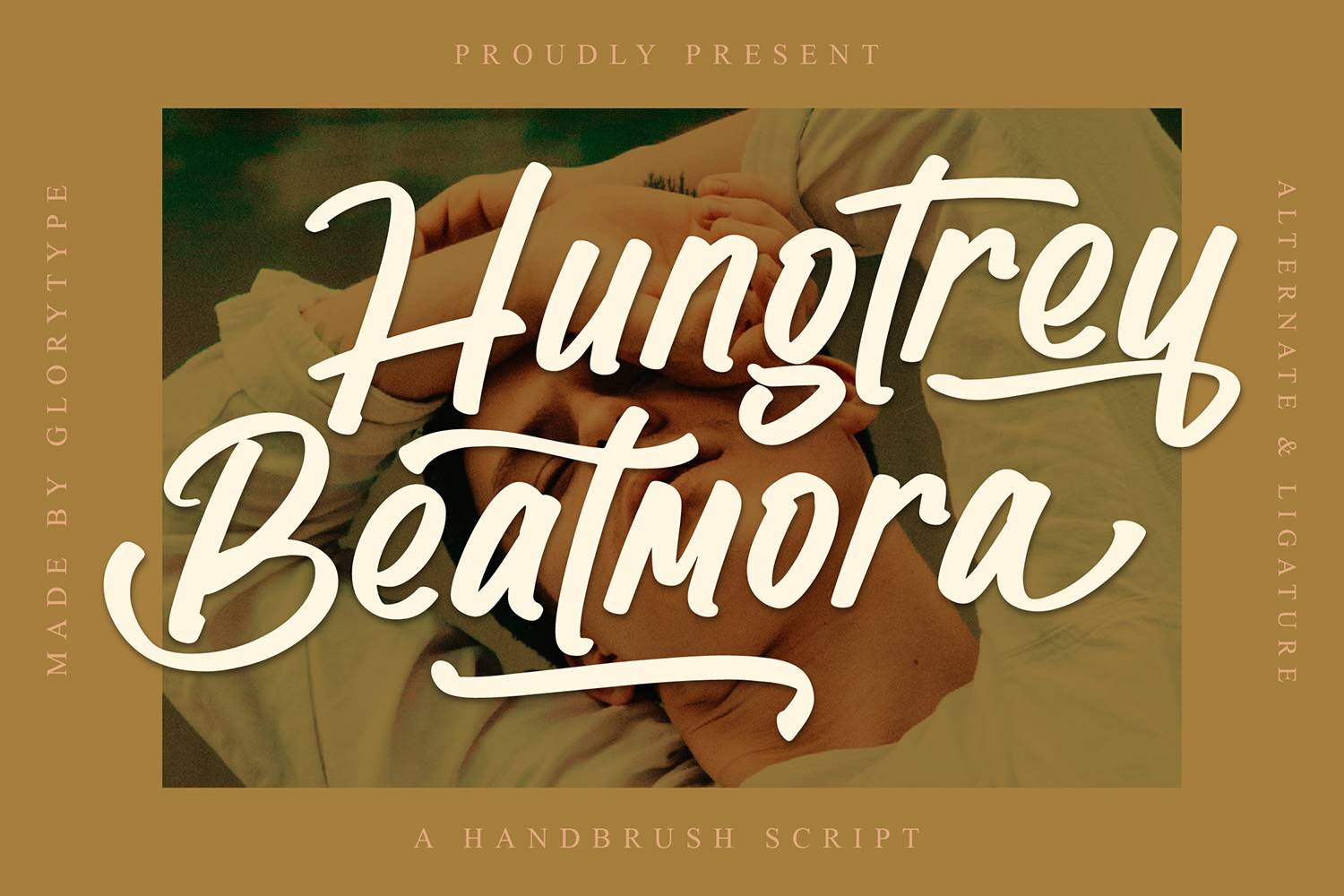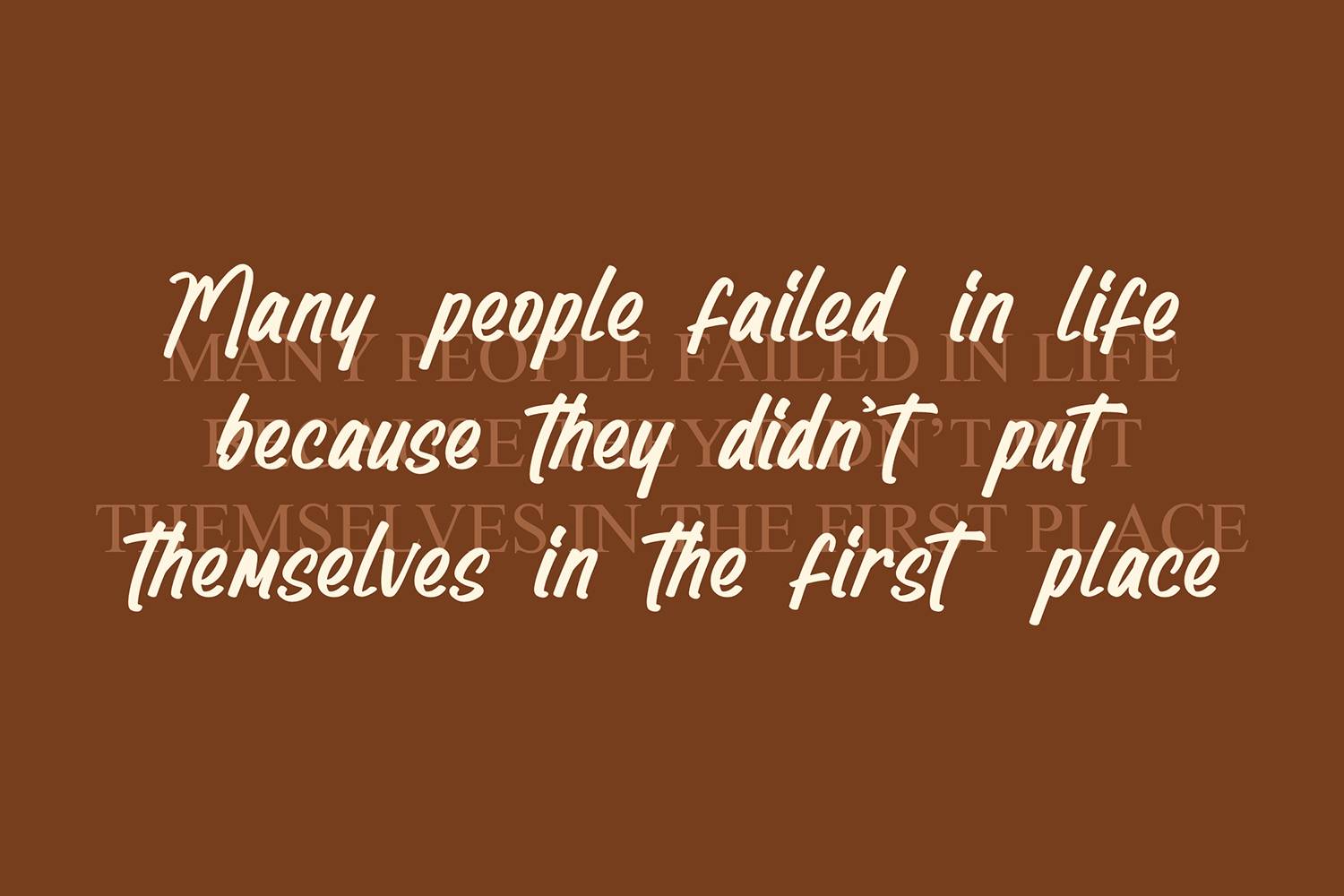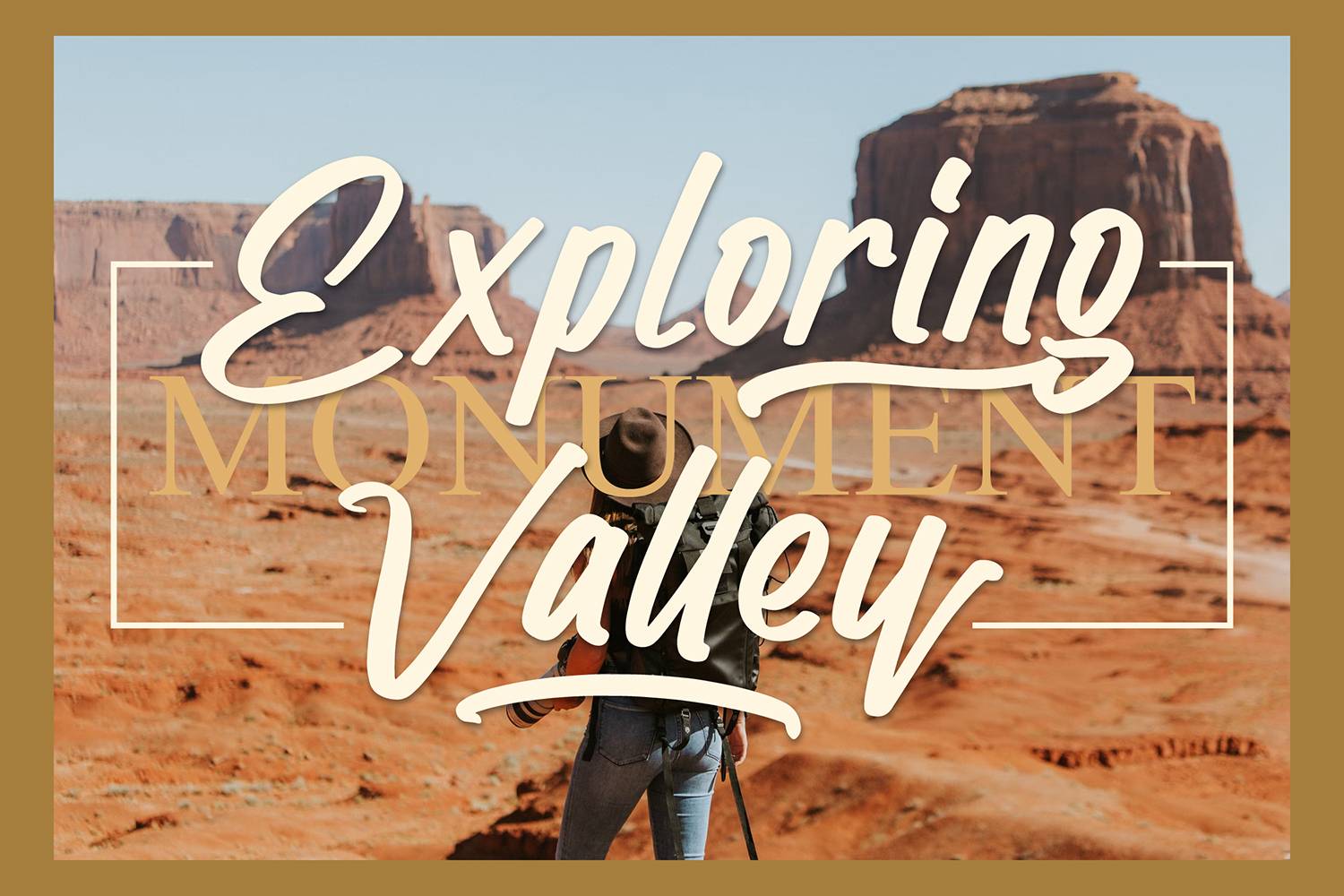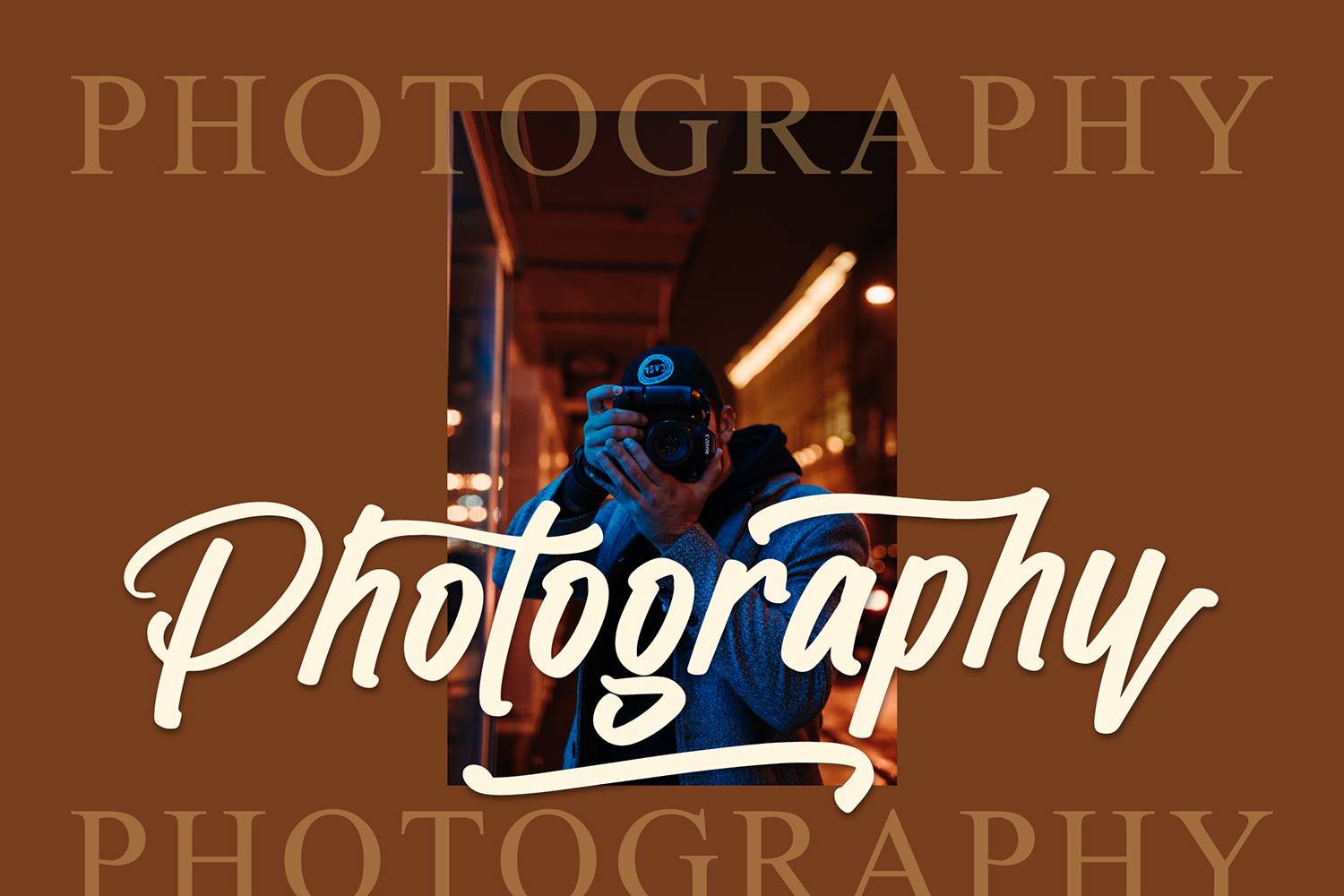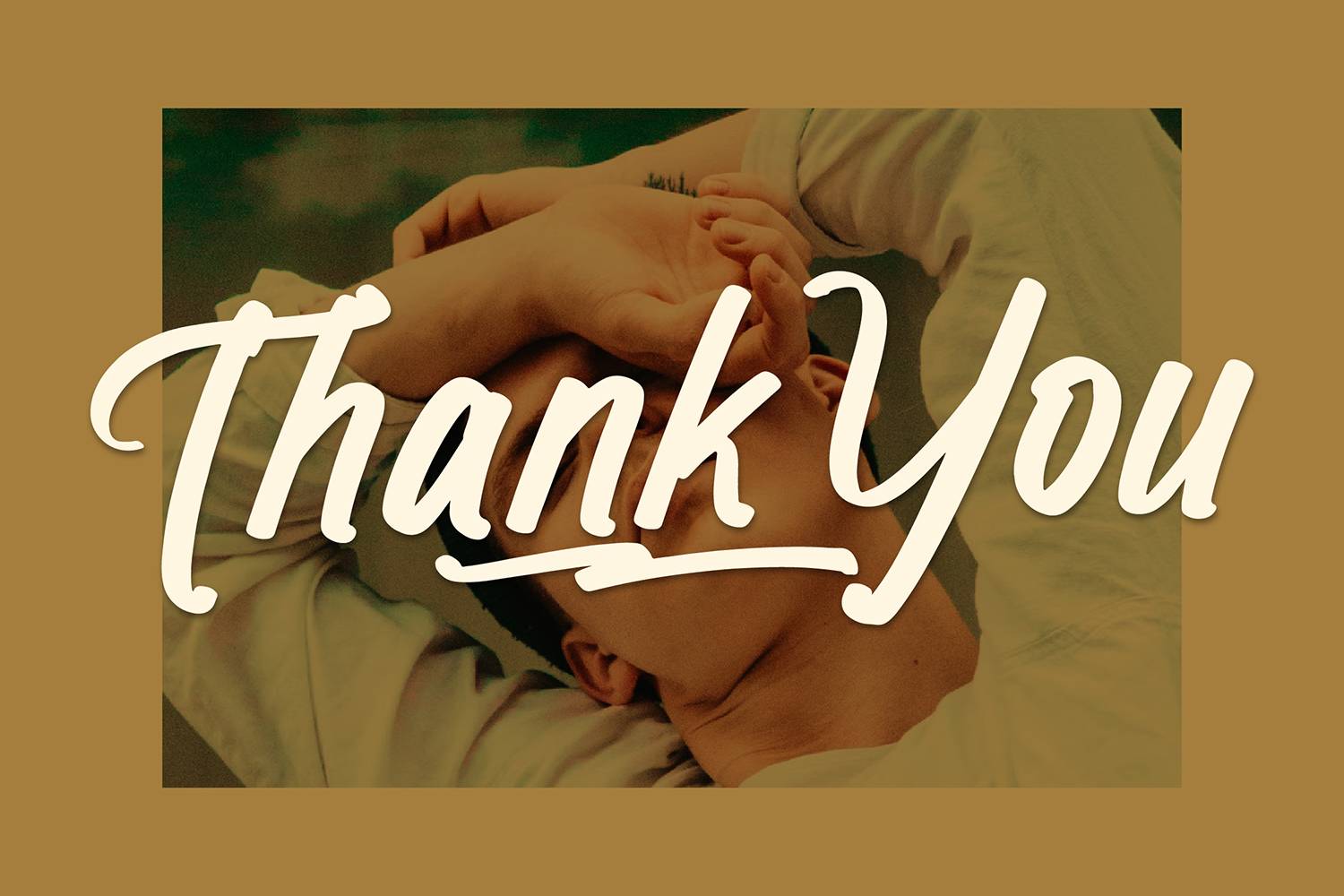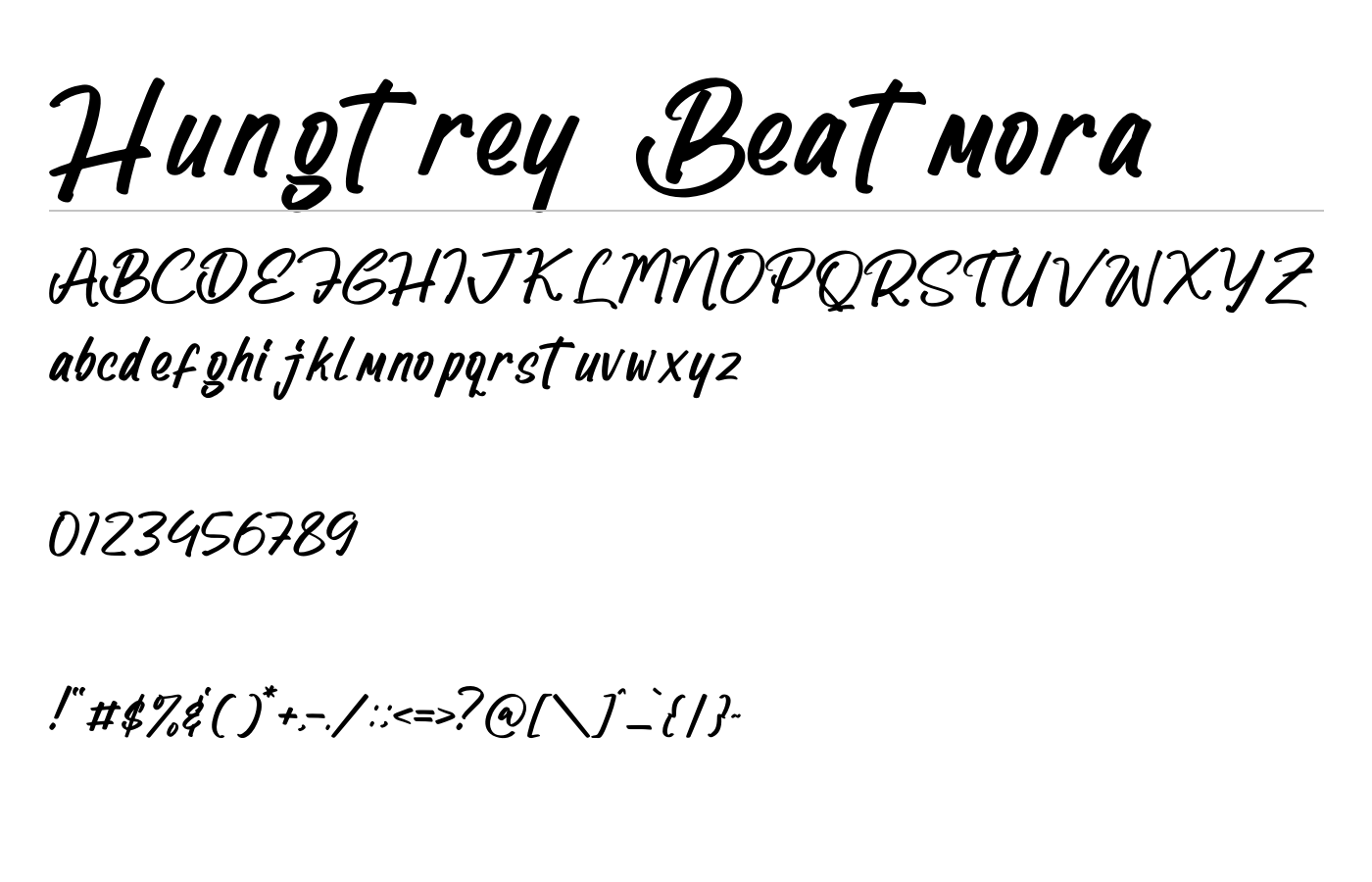
Hungtrey Beatmora is a lively script font with a handwritten feel, featuring a flowing, casual style that combines both uppercase and lowercase characters with smooth, slightly irregular strokes. Its medium weight and moderate contrast make it versatile for conveying an approachable and personal touch, perfect for creative projects, branding, invitations, and any design seeking a friendly yet stylish appearance. This font works well where a natural, informal vibe is needed, especially in logos, social media graphics, and packaging.
Hungtrey Beatmora Font
About Hungtrey Beatmora Font